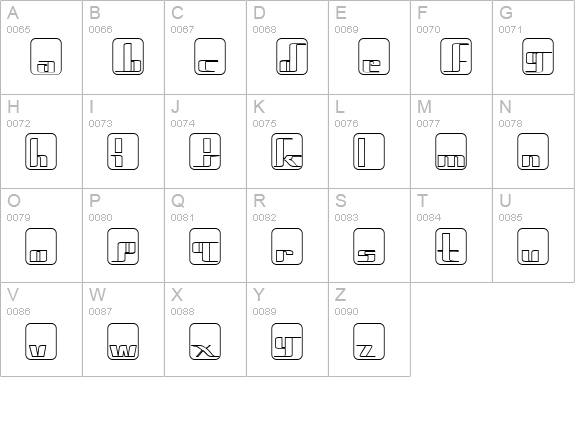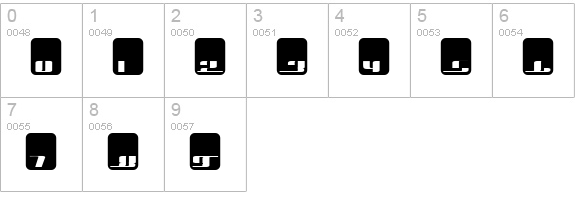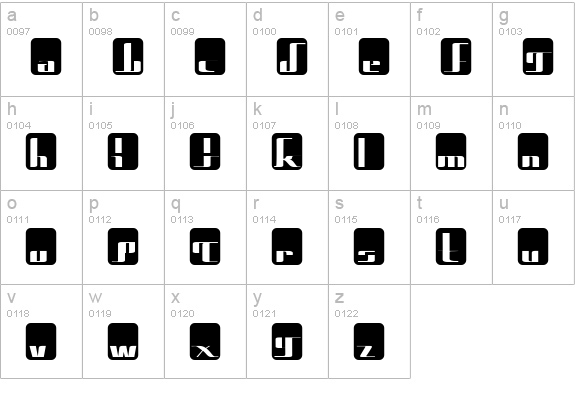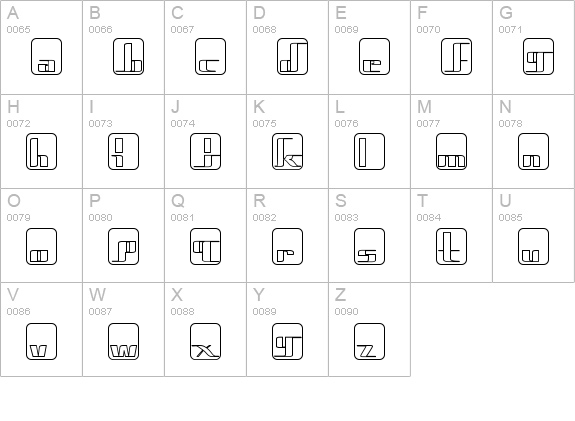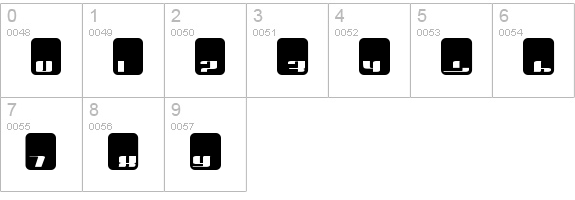
Introducing Paper Chase 2 Blocked Inside Font, a stunning display font that combines the nostalgic charm of vintage typography with a contemporary twist. This font is perfect for adding a touch of retro elegance to any design project, whether it be logos, branding, posters, or social media graphics. Paper Chase 2 Blocked Inside Font features bold, block-like letterforms that exude confidence and strength. Its clean lines and defined edges make it highly legible, ensuring maximum impact in both print and digital mediums. The intricate detailing within each letter adds a unique dimension, making it stand out from other fonts in its category. One of the best things about Paper Chase 2 Blocked Inside Font is that it is available for free download at FontsMarket.com. This means that you can easily access this remarkable font without any cost, making it an excellent choice for designers, students, and hobbyists alike. Its availability on FontsMarket.com ensures that you can obtain this font hassle-free, with just a few clicks. Whether you are a designer looking to add a touch of vintage flair to your project or a typographic enthusiast seeking a unique font to experiment with, Paper Chase 2 Blocked Inside Font is the perfect choice. Its versatility and timeless appeal will undoubtedly enhance the visual impact of any design, while its free availability at FontsMarket.com makes it even more appealing. Don't miss out on the opportunity to elevate your designs with Paper Chase 2 Blocked Inside Font. Download it for free at FontsMarket.com and let your creativity soar.